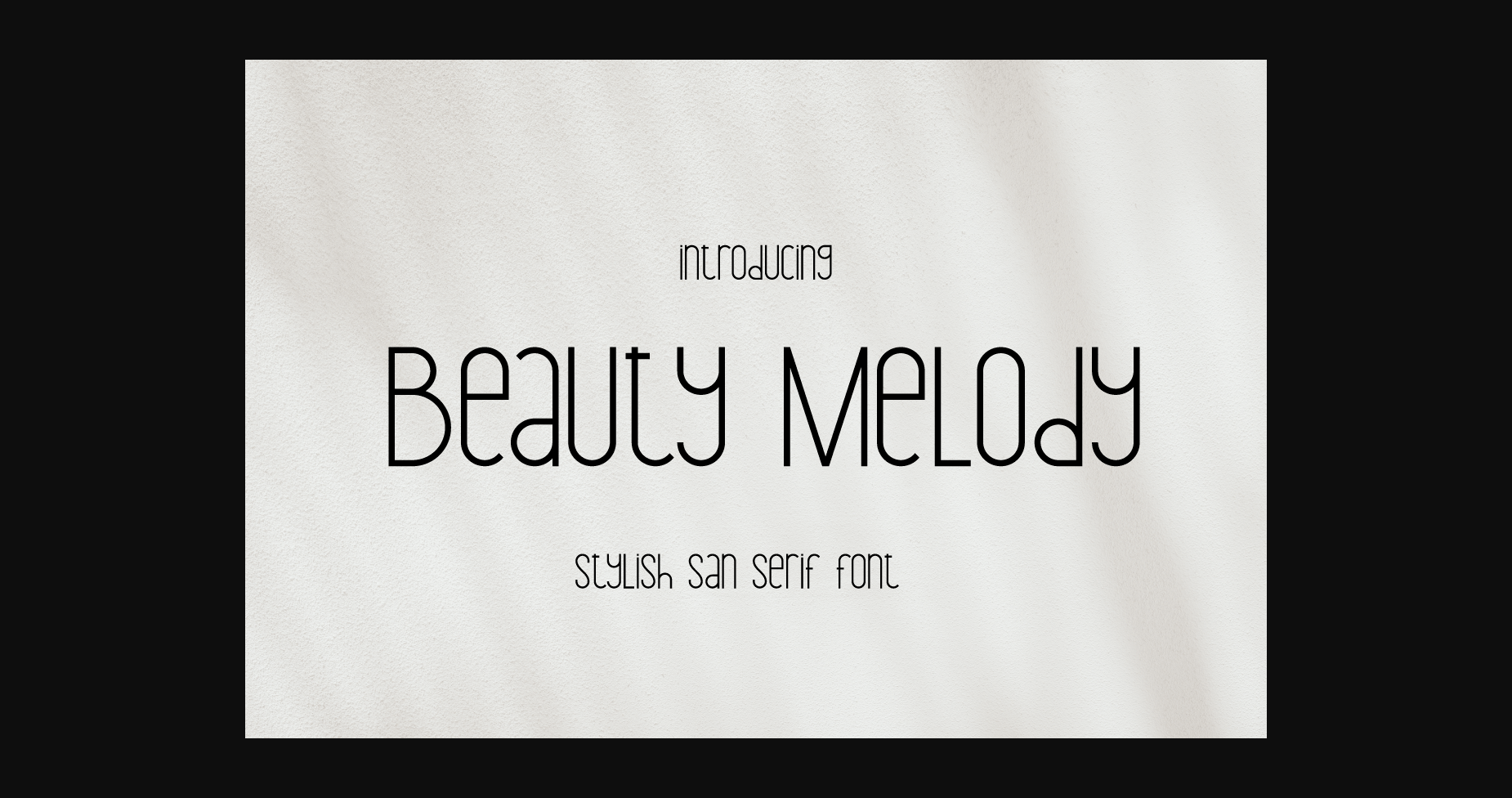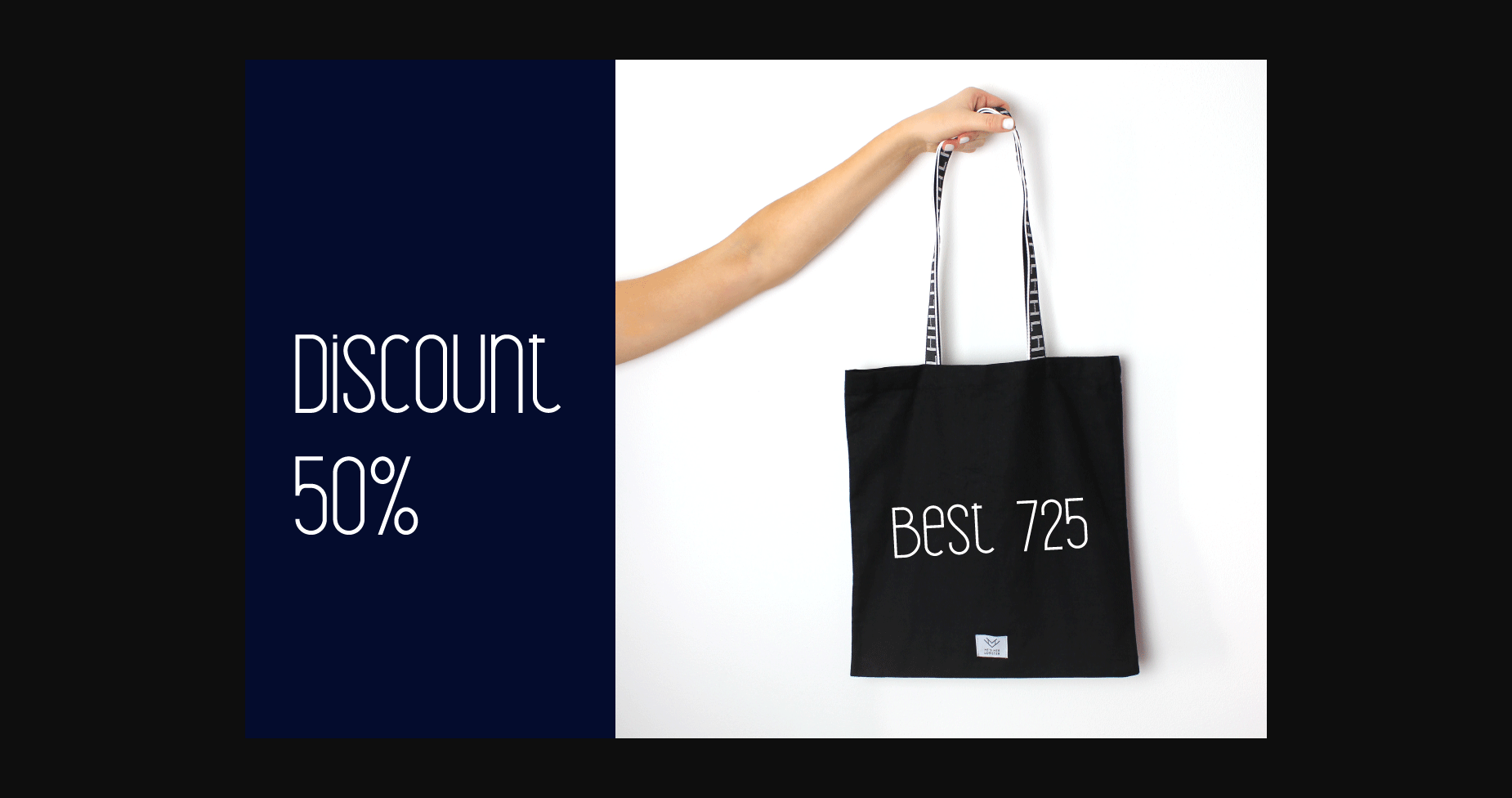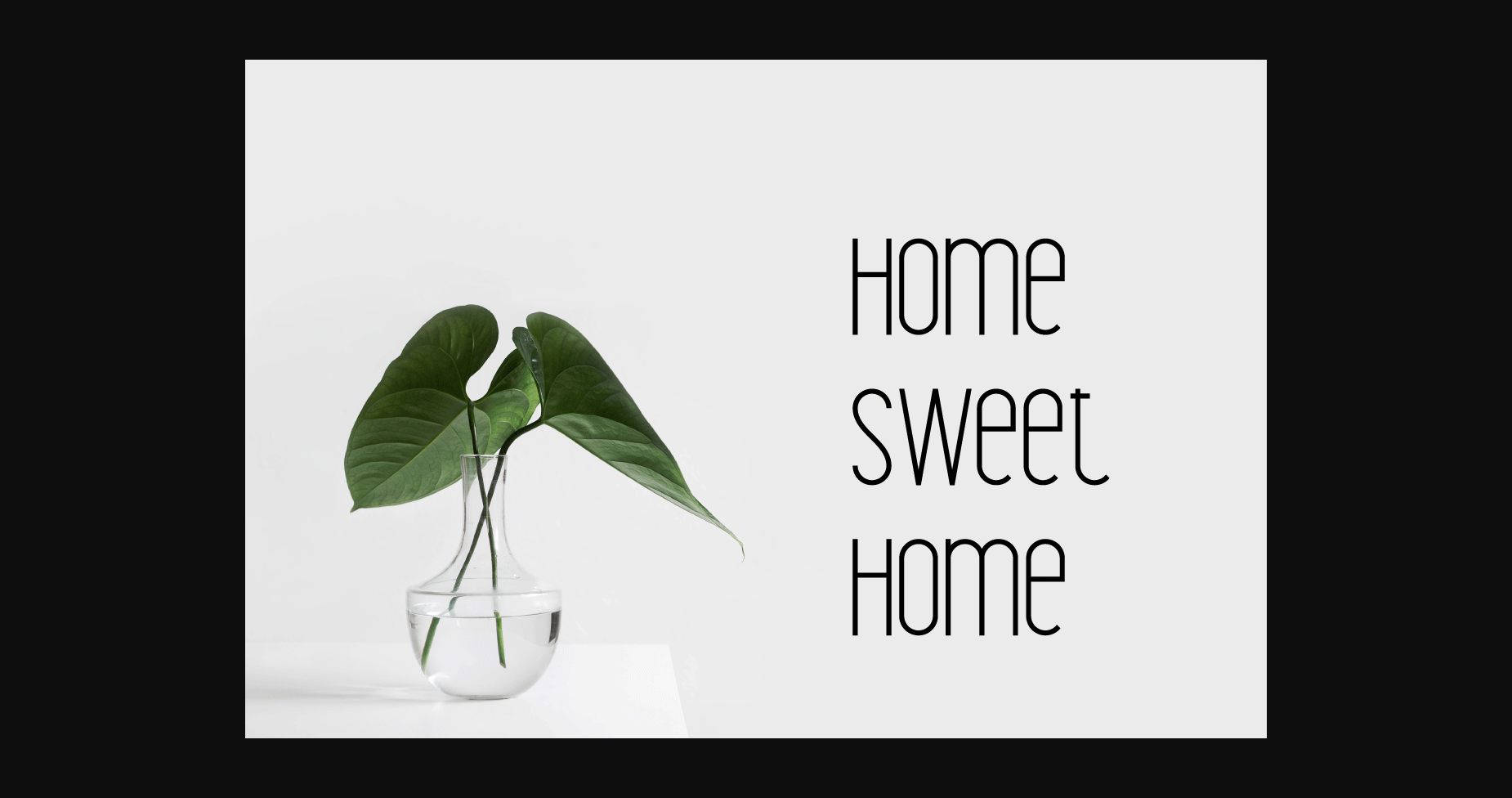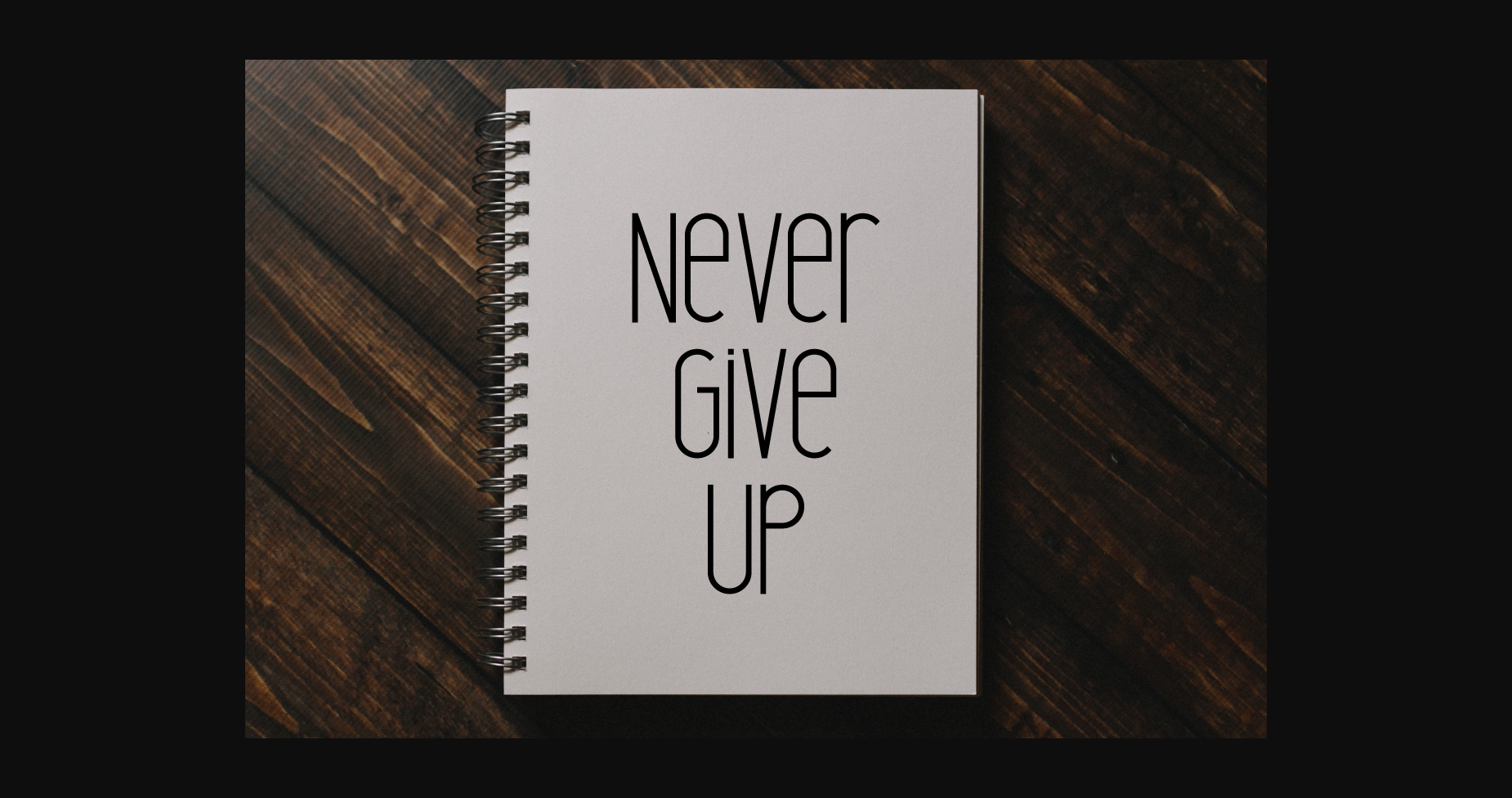
About Beauty Melody Font
Beauty Melody is a stylish and modern sans serif font. It can easily be matched to an incredibly large set of projects, so add it to your creative ideas and notice how it makes them stand out!